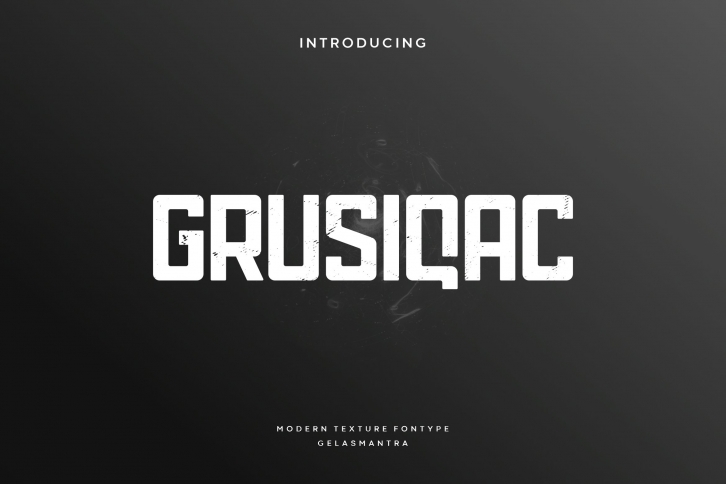
Grusiqac is a decorative typeface with a science fiction style, modern and minimalist. This typeface is only available in all caps, but it does not reduce the function and uniqueness of this font. Grusiqac can be suitable for many logos, headlines and titles. Grab it right away and use your imagination for more interesting, different and unique designs.